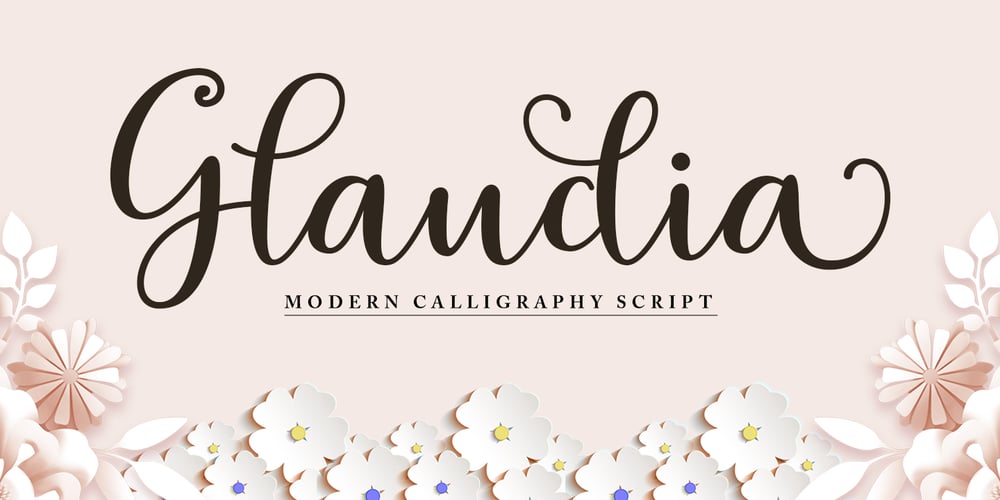
Glaudia Script
Glaudia Script font
Glaudia Script Font Family was designed by Mur Zani and published by Zane Studio. Glaudia Script contains 1 styles and family package options. Introducing Glaudia Script, a smooth, elegant typeface with ligature and alternatives to authentic handwriting nuances. Glaudia Script comes with Regular, and looks great on business cards, envelopes, logos, signage, greeting cards, wedding materials, packaging, and more! Simple for a polished contemporary style. No special software is needed to use Glaudia Script, although the Fly Panel or Character Map is very helpful in accessing alternative glyphs.To activate the OpenType Stylistic alternative, you need a program that supports OpenType features such as Adobe Illustrator CS, Adobe Indesign & CorelDraw X6-X7, Microsoft Word 2010 or newer versions. There are several additional ways to access alternatives / swashes, using Character Maps (Windows), Nexus Fonts (Windows), Font Books (Mac) or software programs such as PopChar (for Windows and Mac).